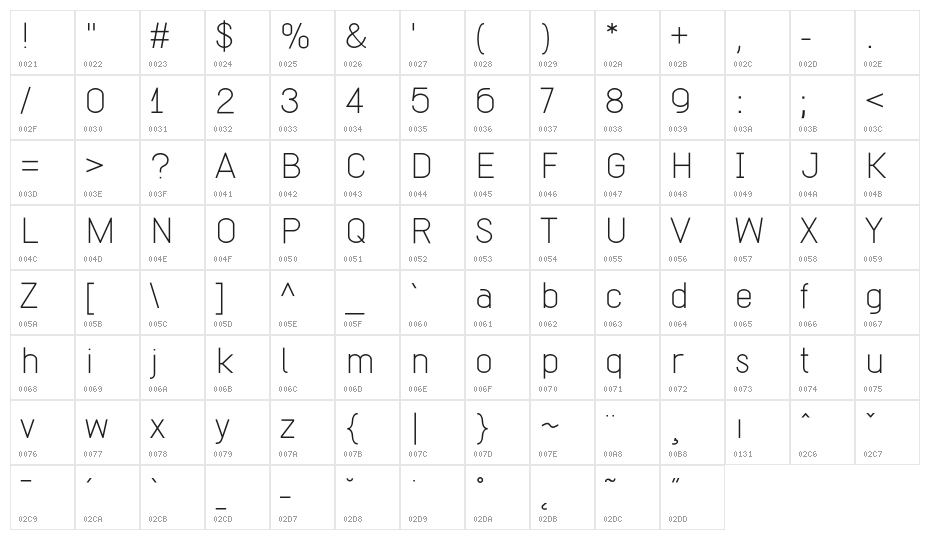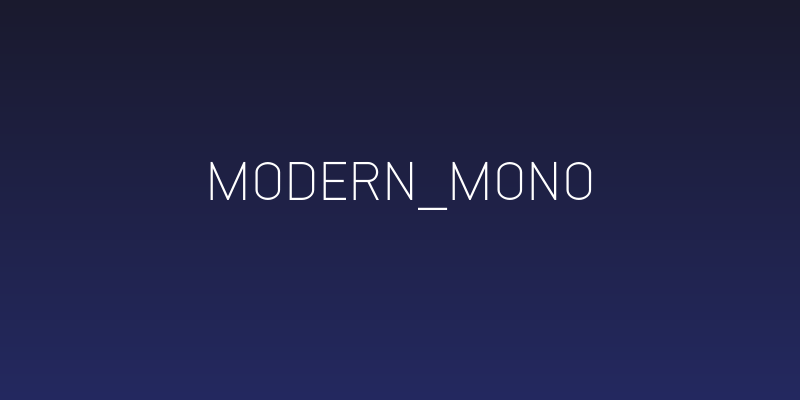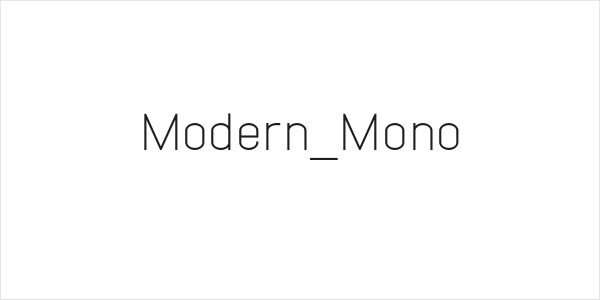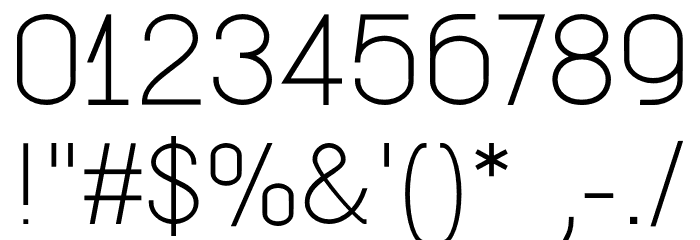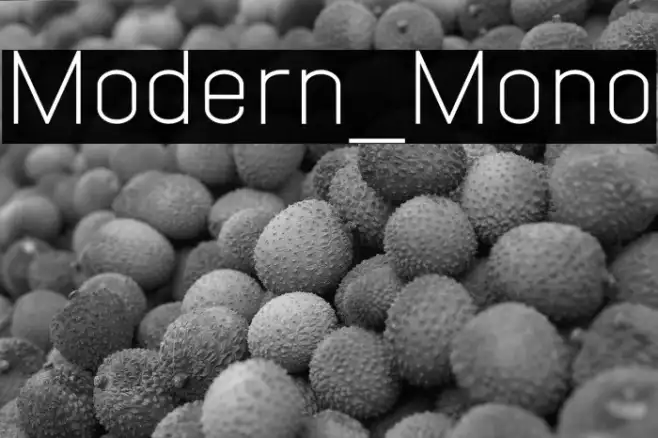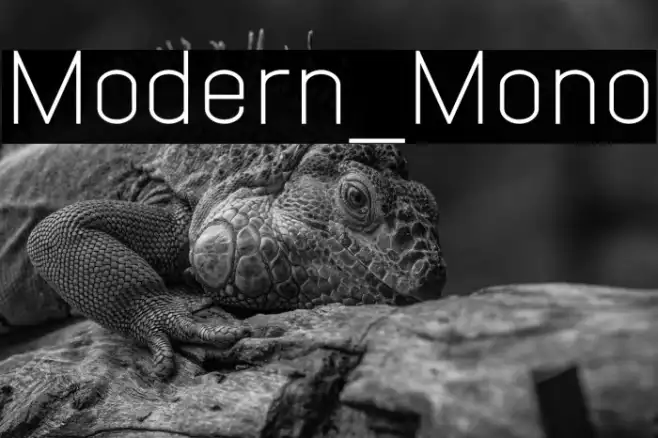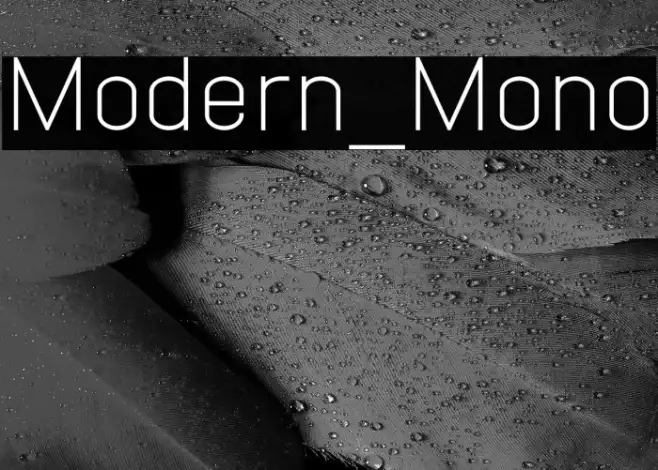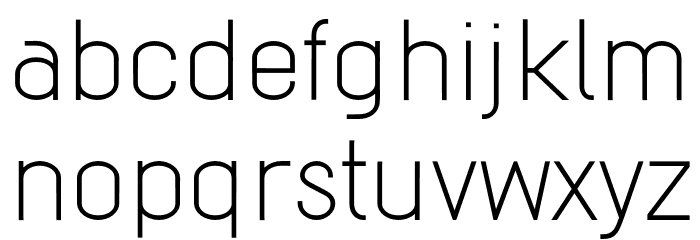
Modern_Mono Font
Modern_Mono Description
This font features a clean and modern design with a monospaced structure, ensuring each character occupies the same amount of horizontal space. The uniformity in width gives it a technical and precise appearance, making it ideal for coding and technical documentation. The strokes are consistent in thickness, providing a low contrast look that enhances readability. The overall style is minimalistic, with straight lines and geometric shapes dominating the design. The font maintains a professional and contemporary feel, suitable for various digital applications.
| Use Case | Coding, Technical documentation, Digital interfaces |
| Proposed Projects | Ideal for coding, technical documentation, digital interfaces, and any project requiring a modern, clean aesthetic. |